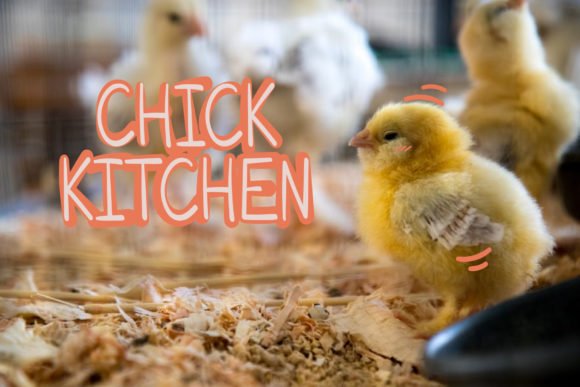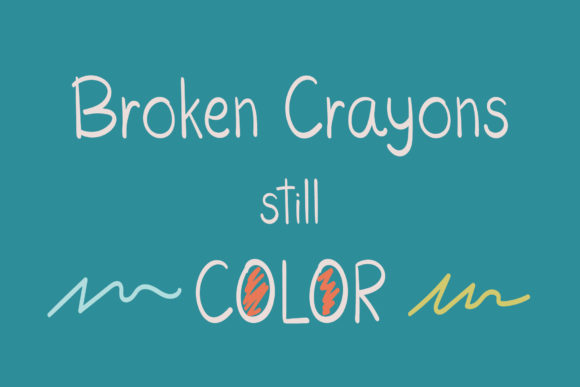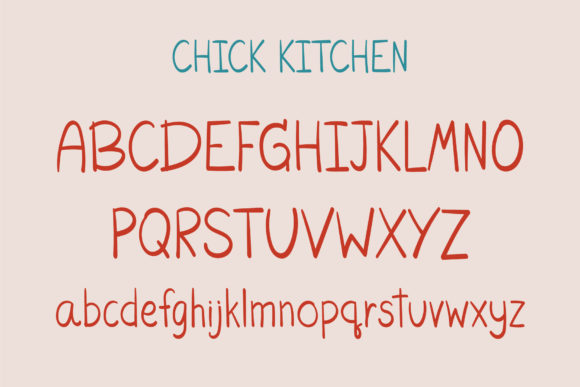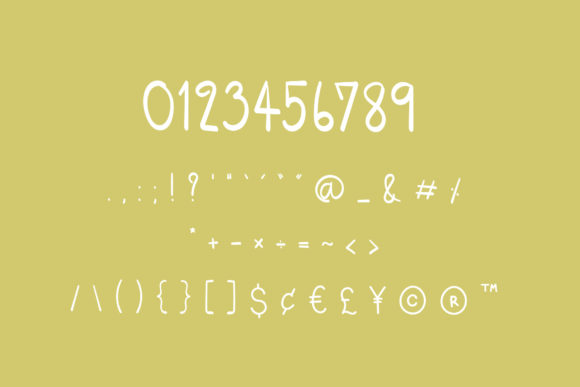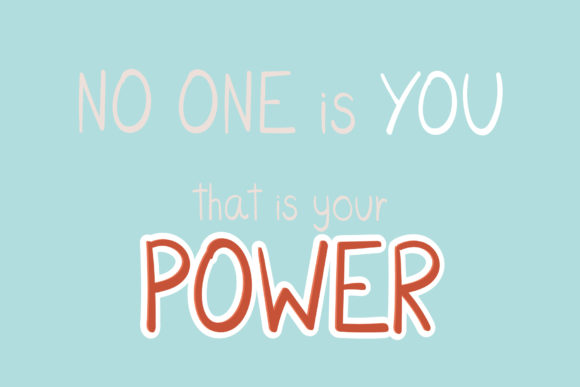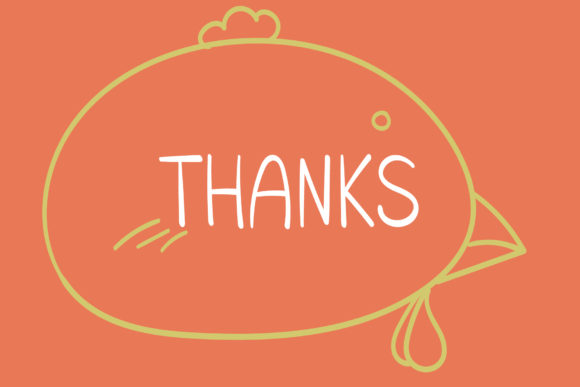
The Perfect Recipe for Creative Success: Chick Kitchen Font
Have you ever been in the middle of a creative project, staring blankly at a blank page, and suddenly, the perfect idea strikes? It’s that moment when everything comes together, and you know exactly what you want to create. For designers, this moment is what makes all the hard work worth it.
One of the secrets to unlocking that perfect creative moment is having the right tools at your disposal. That’s where Chick Kitchen Font comes in – a cute and casual handwritten font that’s perfect for adding a personal touch to your designs. Whether you’re looking to create Instagram-worthy graphics or add a touch of elegance to your DIY projects, Chick Kitchen Font is the perfect recipe for success.
As a designer, you know that the right font can make all the difference in bringing your ideas to life. Chick Kitchen Font is a valuable addition to any designer’s toolkit, offering a unique and friendly feel that’s sure to impress. So why settle for a generic font when you can have a recipe for creative success with Chick Kitchen Font?
Chick Kitchen Font Key Features
- Font Family: Chick Kitchen Font is a unique, hand-drawn font designed specifically for food-related content.
- Size: The font comes in a range of sizes, from 12 to 72 points, making it suitable for various design applications.
- Resolution: Designed to be high-resolution, Chick Kitchen Font is ideal for use in digital and print media, including restaurant menus, food blogs, and packaging.
- Unique Characteristics: The font features playful, hand-drawn elements and quirky characters that add a touch of whimsy to any design.
- Language Support: Chick Kitchen Font supports a wide range of languages, including Latin, Cyrillic, and Greek alphabets.
Chick Kitchen Font Review
Overall, I’m a bit mixed about the Chick Kitchen Font. While it’s cute and playful, it may not be the most practical choice for a kitchen-themed design project. Here’s what I think:
- ✨ The font’s playful, handwritten feel is perfect for a casual kitchen design. It’s great for labels, headings, or even a recipe book cover.
- ✨ The font’s boldness is well-suited for titles and headings, and it’s easy to read in larger sizes.
- ⚠️ The font’s irregularity may make it difficult to read in smaller sizes or in body text.
- ⚠️ The font’s limited character set may cause issues if you need to use it for longer texts or technical recipes.
Overall, I think the Chick Kitchen Font is a fun and creative choice for a kitchen design project, but it may not be the best option for more complex or formal designs. If you’re looking for a playful, handwritten font for a small-scale project, this might be a good choice. However, for more extensive designs, you may want to consider a more versatile font.
Tips for Getting the Most Out of Chick Kitchen Font
To get the most out of Chick Kitchen Font, use it for:
- Casual, home-cooking-themed designs.
- Food blogs, recipes, and cooking-related content.
- Branding and marketing materials for restaurants, cafes, and food-related businesses.
Chick Kitchen Font is commonly used for:
- Menu boards and signage.
- Food labels and packaging.
- Recipe cards and cooking-related print materials.
Alternatives to Chick Kitchen Font
Great Vibes Font is a modern script font that features a friendly and approachable feel. It is ideal for use in invitations, greeting cards, and other creative projects where a casual, handwritten look is desired. Compared to Chick Kitchen Font, Great Vibes Font is more cursive and has a softer appearance.
Alex Brush Font is a elegant and refined script font that is perfect for use in high-end branding, luxury packaging, and other design projects where a sophisticated, handwritten look is desired. It has a more polished and refined appearance compared to Chick Kitchen Font, making it suitable for formal and professional applications.
Carolyna Pro Font is a modern script font that features a clean and elegant design. It is ideal for use in branding, packaging, and other design projects where a professional, yet approachable look is desired. Compared to Chick Kitchen Font, Carolyna Pro Font is more refined and has a more neutral appearance.
Q: What is the recommended font size for using the Chick Kitchen Font?
The recommended font size for the Chick Kitchen Font is between 10pt and 24pt. This font size range provides optimal readability and legibility for most applications. However, you may need to adjust the font size based on your specific design requirements.